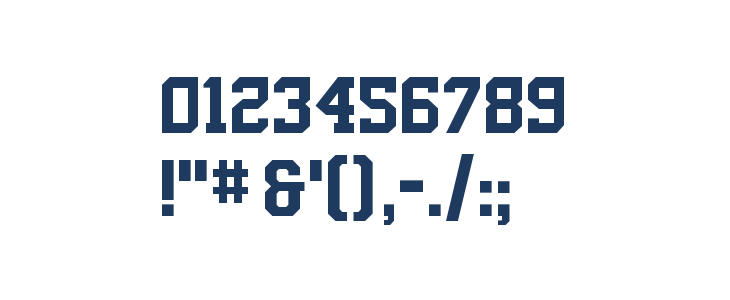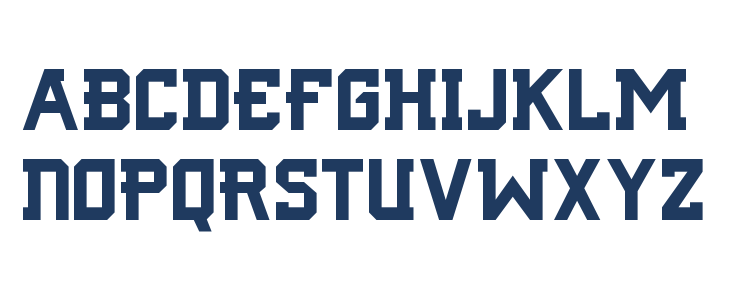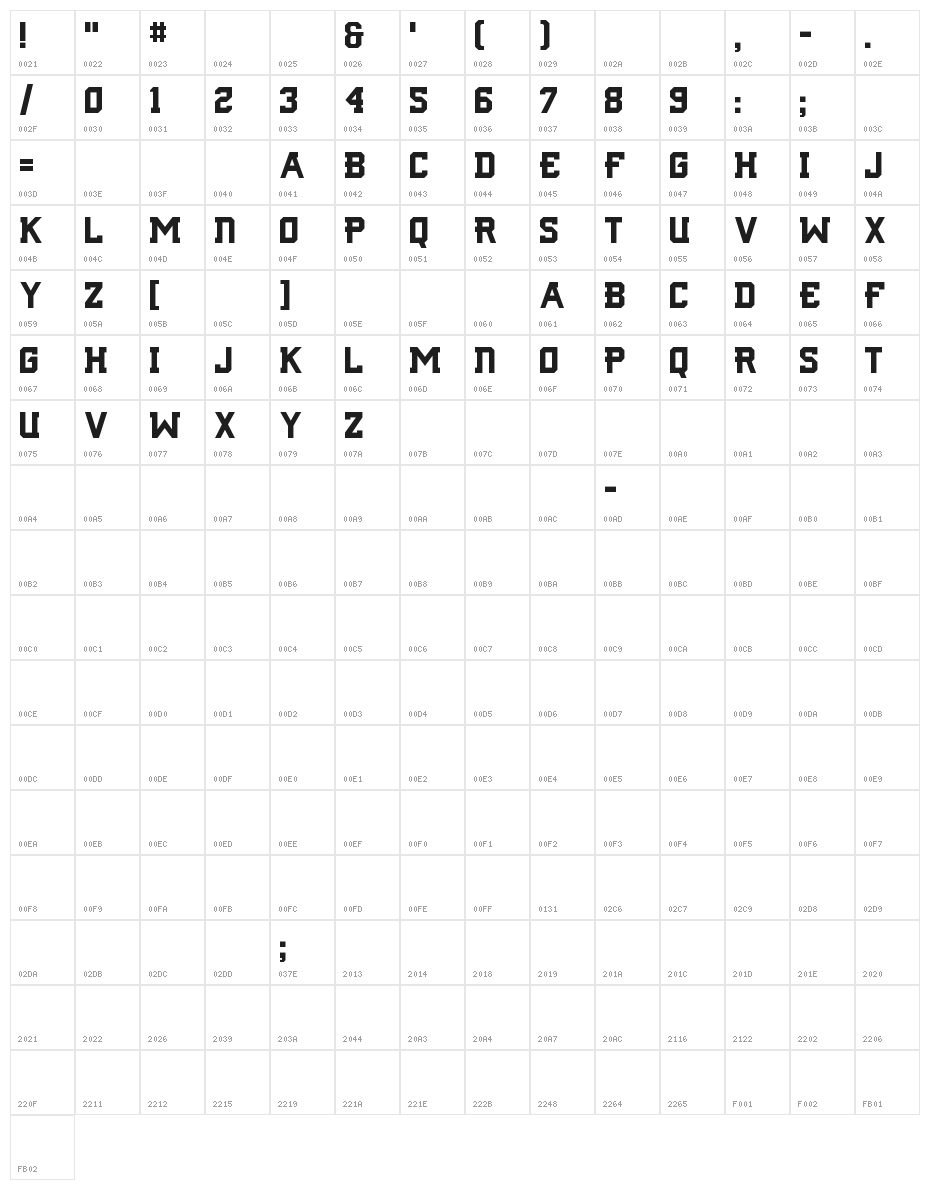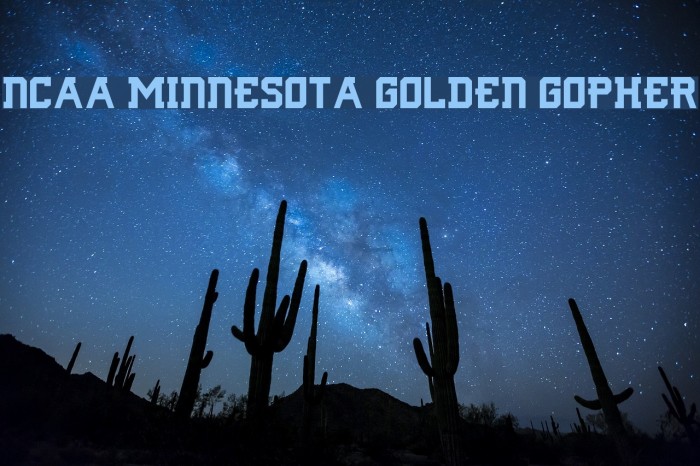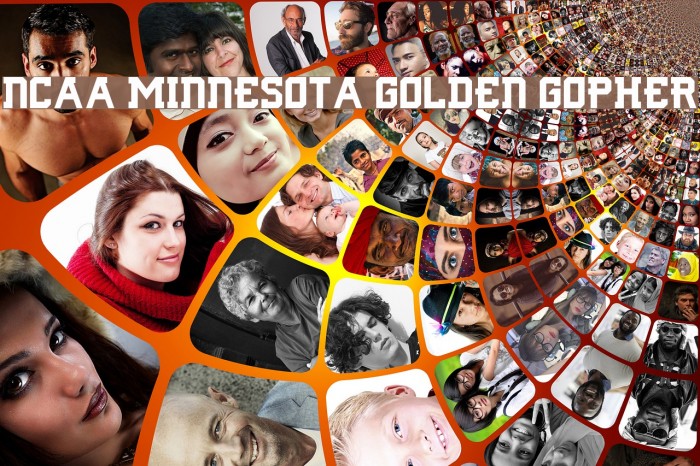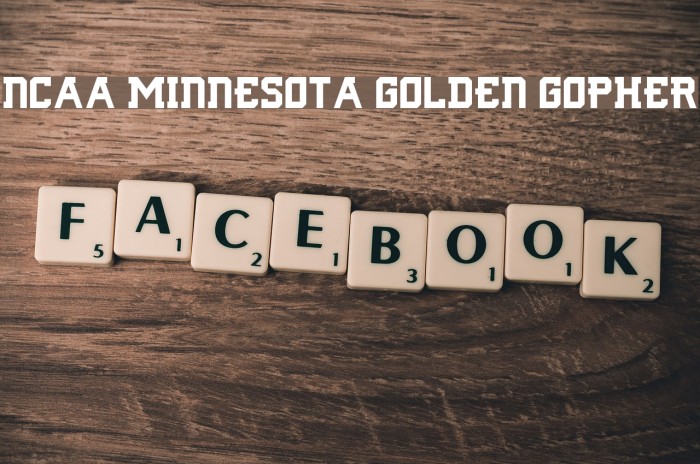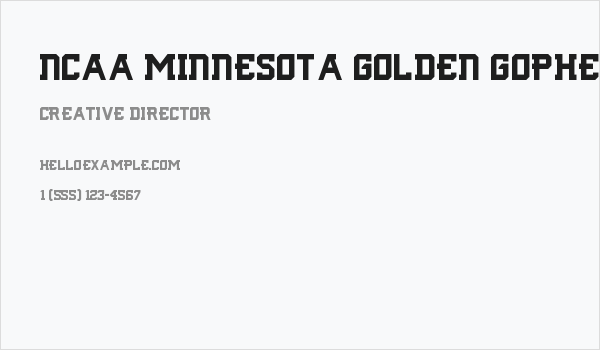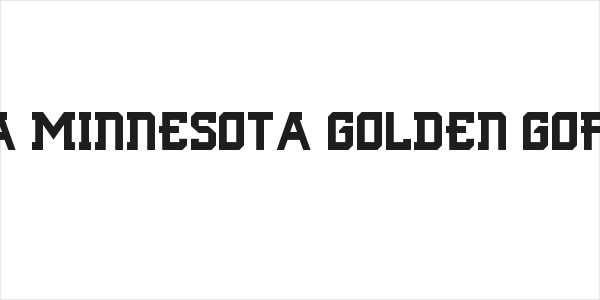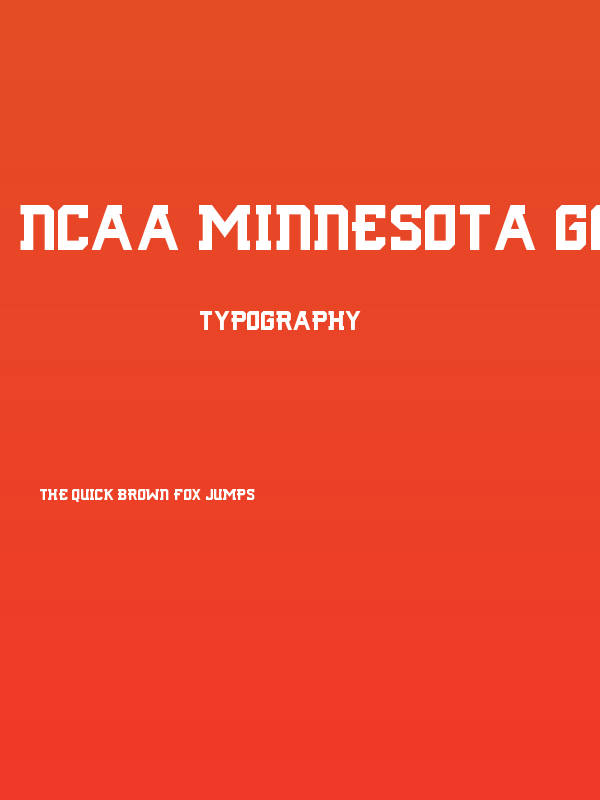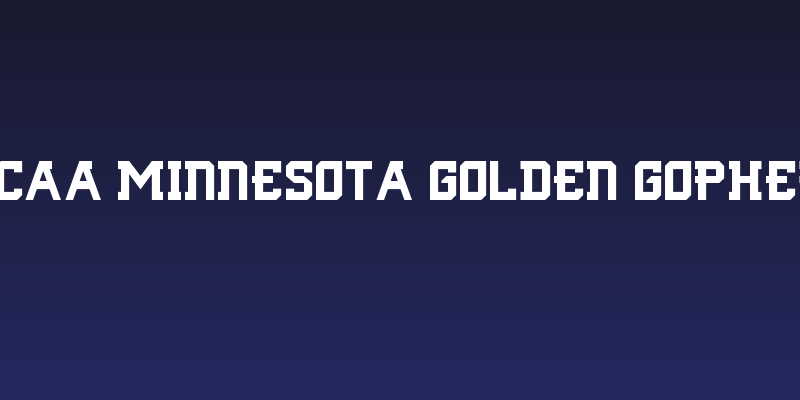
NCAA Minnesota Golden Gopher Font
NCAA Minnesota Golden Gopher Description
This font features a bold, geometric style with strong, angular lines and a robust presence. The characters are designed with a blocky, athletic aesthetic, reminiscent of collegiate sports branding. The uppercase letters are particularly striking, with sharp edges and a uniform height that conveys strength and stability. The numbers and special characters maintain this boldness, ensuring consistency across all glyphs. The overall design is clean and impactful, making it ideal for projects that require a commanding visual presence.
| Proposed Projects | Ideal for sports team branding, athletic apparel, event posters, and merchandise that require a strong, bold presence. |